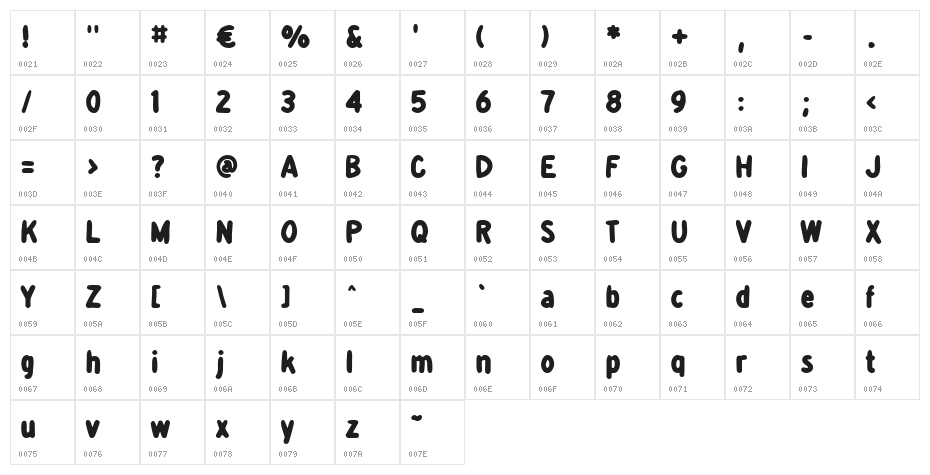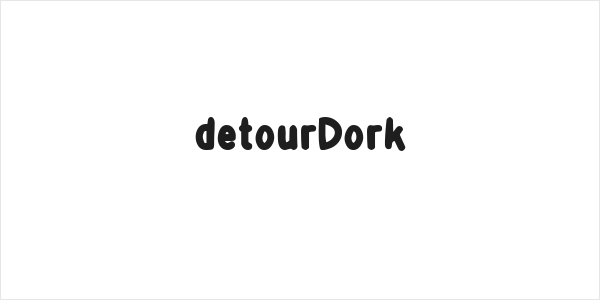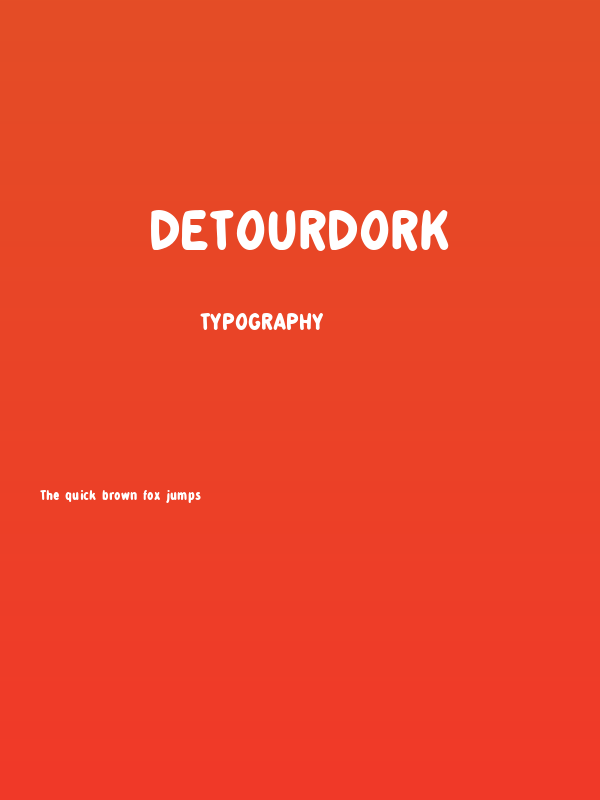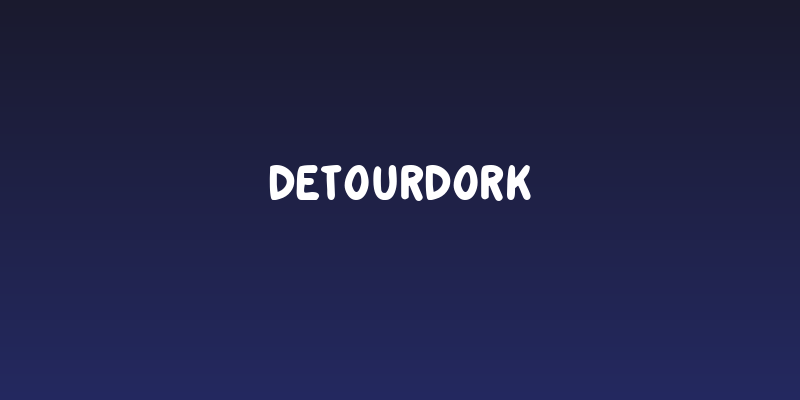
detourDork Font
detourDork Description
This playful and bold font features rounded, thick strokes that give it a friendly and approachable appearance. The characters are slightly irregular, adding a whimsical touch to the overall design. The uppercase and lowercase letters maintain a consistent style, with a uniform thickness that enhances readability. The numbers and special characters are designed to match the playful aesthetic, making them suitable for a variety of creative projects. The font's boldness ensures it stands out, while the rounded edges soften its impact, making it versatile for both casual and professional use.
| Proposed Projects | Ideal for children's books, playful branding, posters, and greeting cards. |